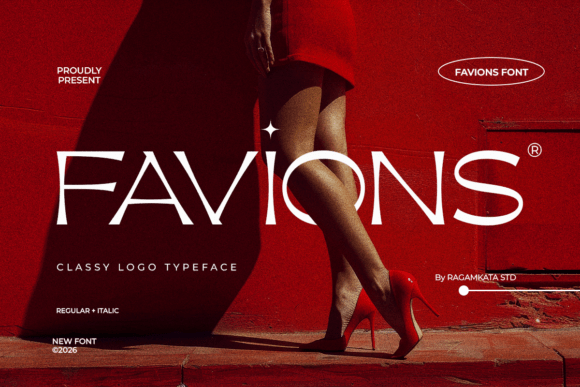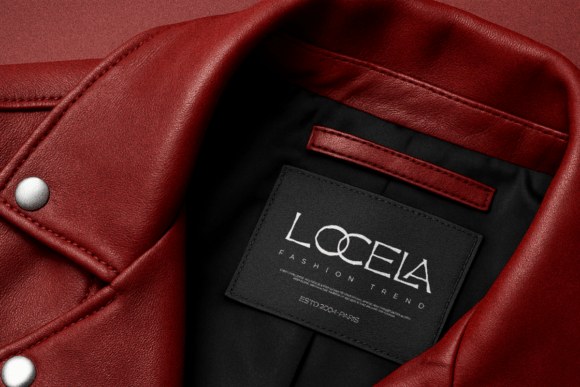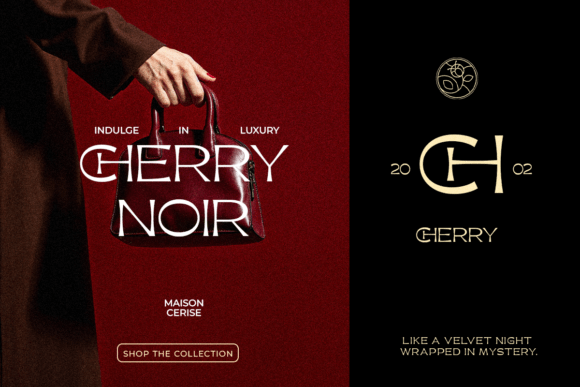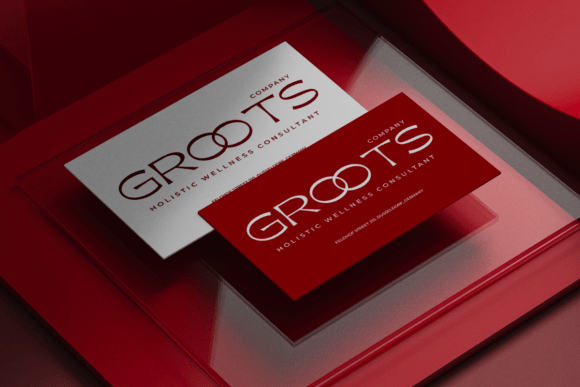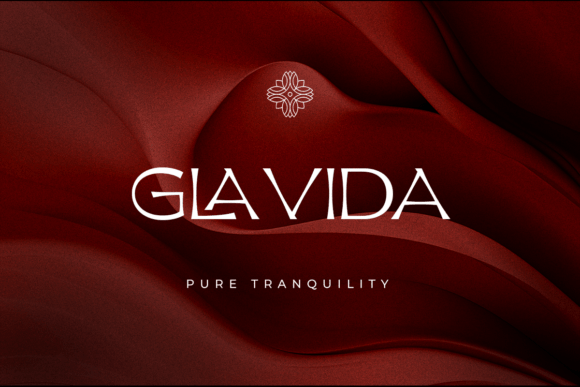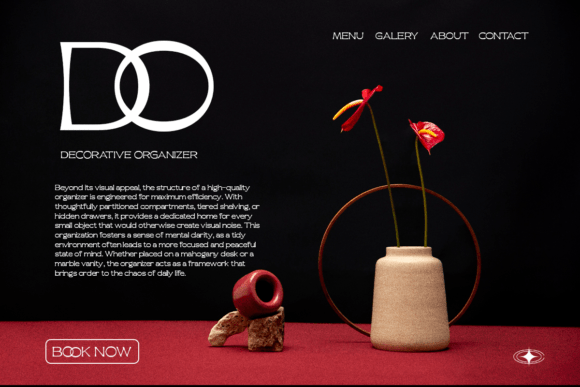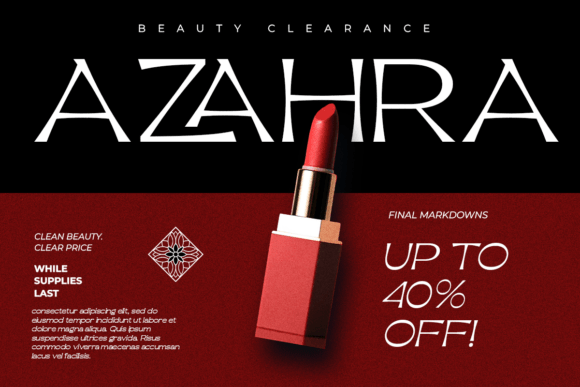
Unlocking Elegance: The Power of Favions Font
Have you ever stared at a beautifully crafted logo and wondered what makes it tick? For designers, it’s that elusive combination of style, sophistication, and confidence that elevates a brand from ordinary to extraordinary. And that’s exactly what Favions Font aims to deliver – a classy logo typeface that redefines the boundaries of modern branding.
Designed to evoke high-fashion aesthetics and luxury visual identity, Favions Font is more than just a typeface – it’s a statement of intent. Its refined balance between minimalism and sophistication makes it the perfect tool for designers seeking to create premium, visually striking designs that leave a lasting impression. Whether you’re working on a luxury logo, fashion editorial, or social media campaign, Favions Font is the perfect choice for adding that extra touch of elegance and confidence to your work.
Favions Font Key Features
- Unique Characteristics: Favions Font features a unique blend of modern and classic design elements, making it suitable for a wide range of applications, from corporate to creative projects.
Favions Font Review
I recently had the chance to work with Favions Font, and I must say it’s a mixed bag. Here’s my honest take on it.
- Unique and elegant design: Favions Font has a distinct, modern feel that’s perfect for creating a sophisticated and luxurious atmosphere in your designs.
- Highly legible: The font is easy to read, even at smaller font sizes, making it ideal for body text and paragraphs.
- Great for headings: The font’s bold and playful style makes it perfect for creating eye-catching headings and titles.
- Limited language support: Favions Font only supports a limited range of languages, which may be a concern for designers working on multilingual projects.
- Not suitable for small text: While the font is highly legible, it can look a bit cluttered when used at very small font sizes, so be sure to test it thoroughly.
- May not be ideal for complex layouts: The font’s unique style can make it challenging to work with in complex layouts, so be prepared for some trial and error.
Overall, I think Favions Font is a solid choice for designers looking for a modern and elegant font. While it has some limitations, it’s definitely worth considering for the right project. Just be sure to test it thoroughly and consider the potential drawbacks before making a final decision.
Tips for Getting the Most Out of Favions Font
Favions Font is a versatile font that can be used for a variety of projects, including:
- Logo design
- Business cards
- Marketing materials
- Web design
To get the most out of Favions Font, experiment with different font sizes, colors, and styles to create a unique look that suits your brand.
Alternatives to Favions Font for Designers
Lato Font is a modern sans-serif typeface that is highly versatile and suitable for a wide range of design projects, including logos, headings, and body text. It is available in various weights and styles, making it a great alternative to Favions Font for designers who need a clean and elegant font for their designs.
Comparison to Favions Font: Lato Font is more minimalist and has a more neutral tone compared to Favions Font, which has a slightly more dramatic feel. Lato Font is also more readable in smaller font sizes, making it a great choice for digital designs.
Montserrat Font is a geometric sans-serif typeface that is highly legible and suitable for a wide range of design projects, including logos, headings, and body text. It is available in various weights and styles, making it a great alternative to Favions Font for designers who need a modern and urban font for their designs.
Comparison to Favions Font: Montserrat Font has a more geometric and urban feel compared to Favions Font, which has a more elegant and refined feel. Montserrat Font is also more suitable for digital designs and is highly legible in small font sizes.